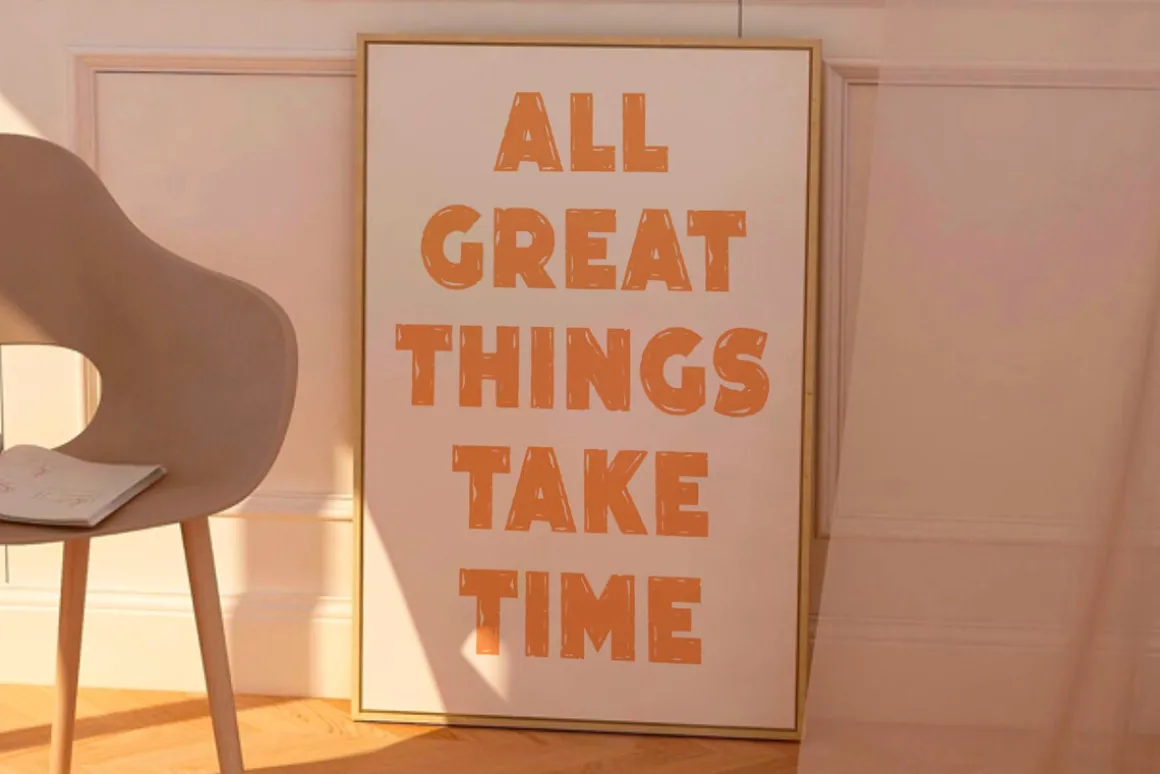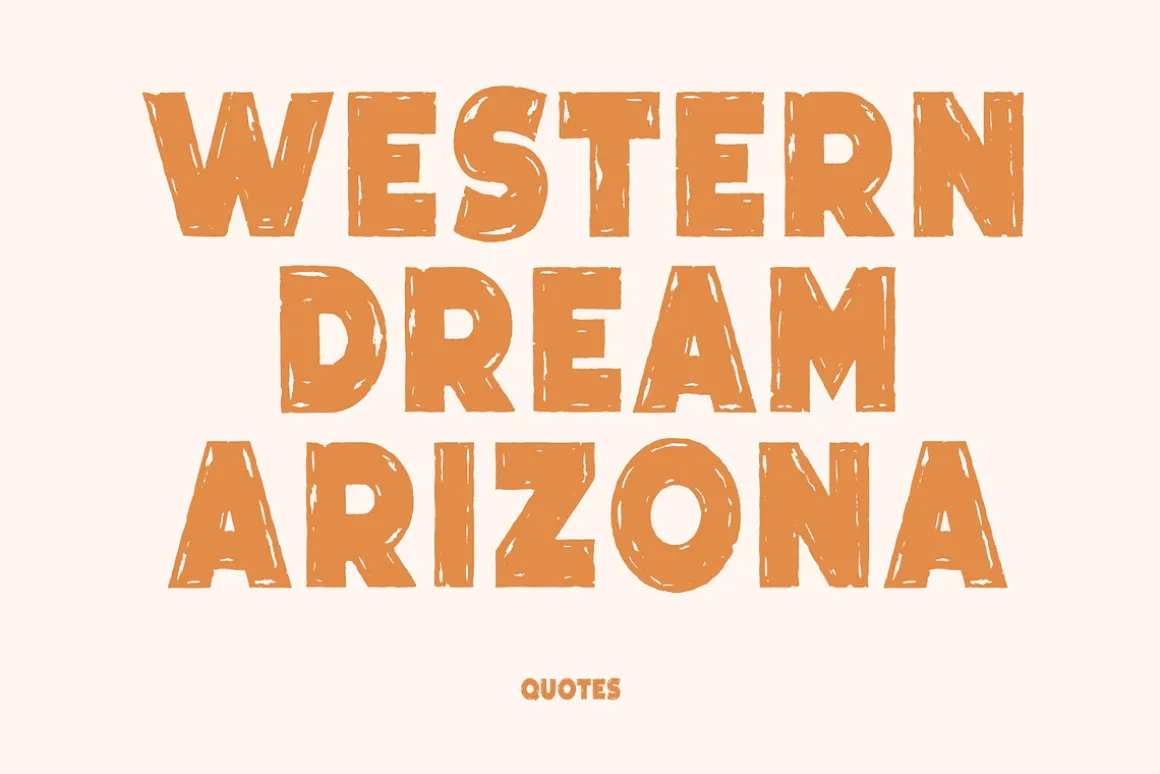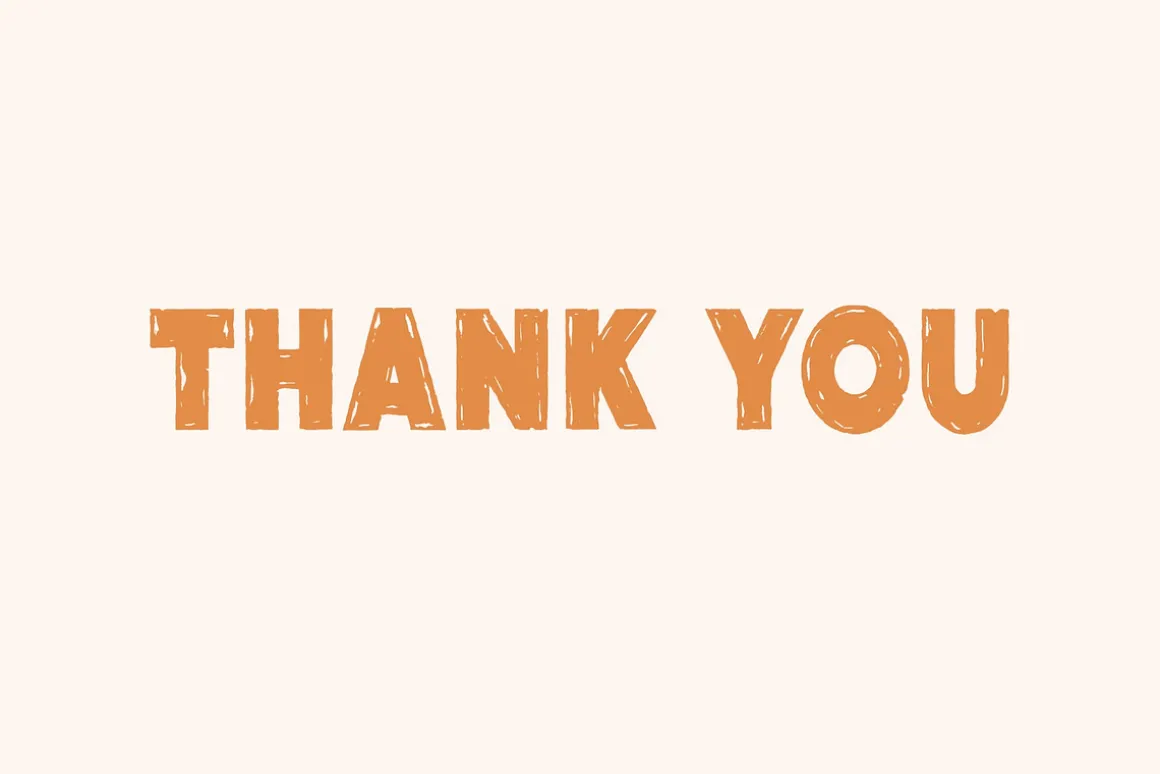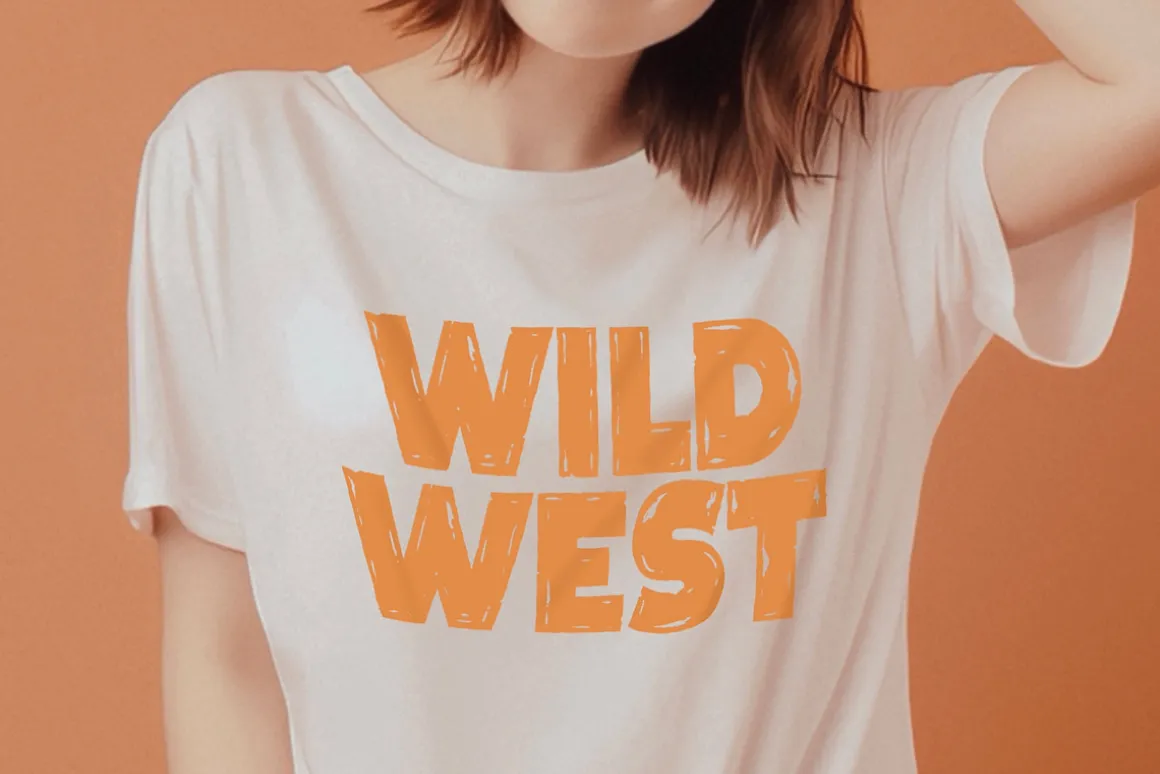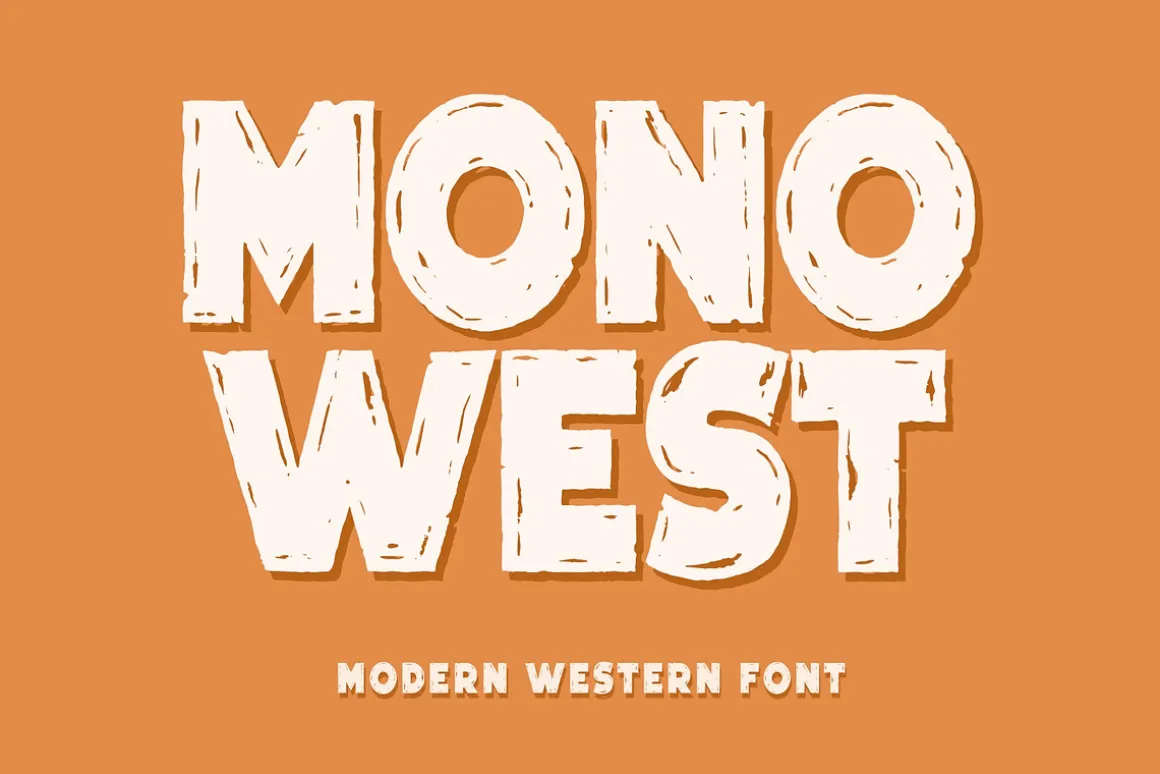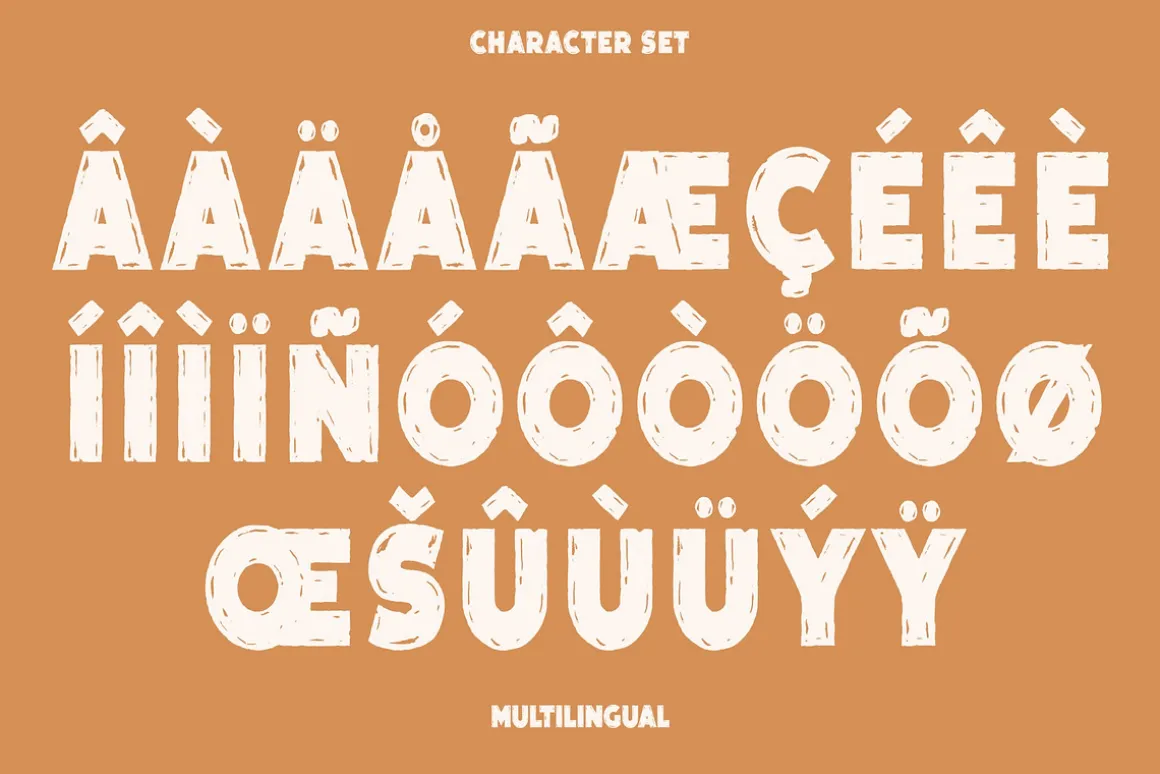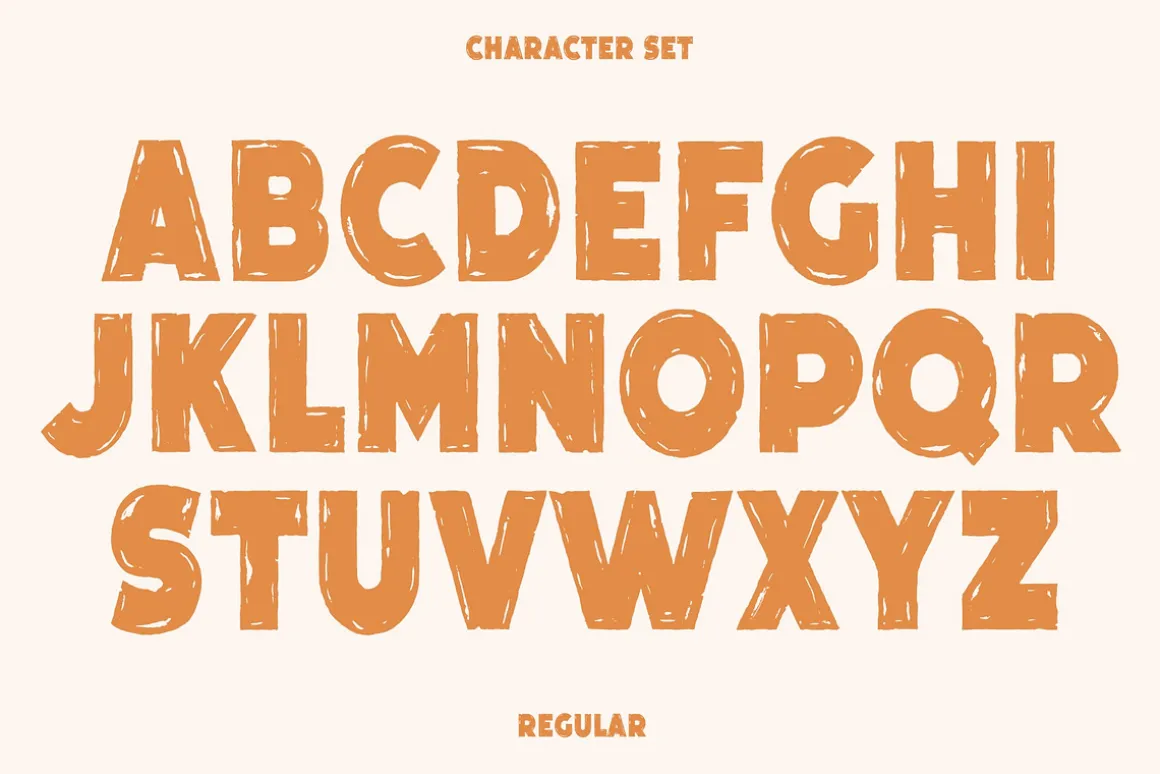
Mono West is a Sans Serif font that seamlessly blends contemporary design with a distinctive Western flair, offering a unique typographic experience. This typeface available in SVG format, compatible with advanced tools such as Cricut and Glowforge, and for use in Procreate. Characterized by clean lines and a modern aesthetic, Mono West exudes a sense of sophistication and simplicity. This font product pays homage to the spirit of the American West through subtle design elements that evoke the rugged landscapes and iconic imagery of the Western frontier.